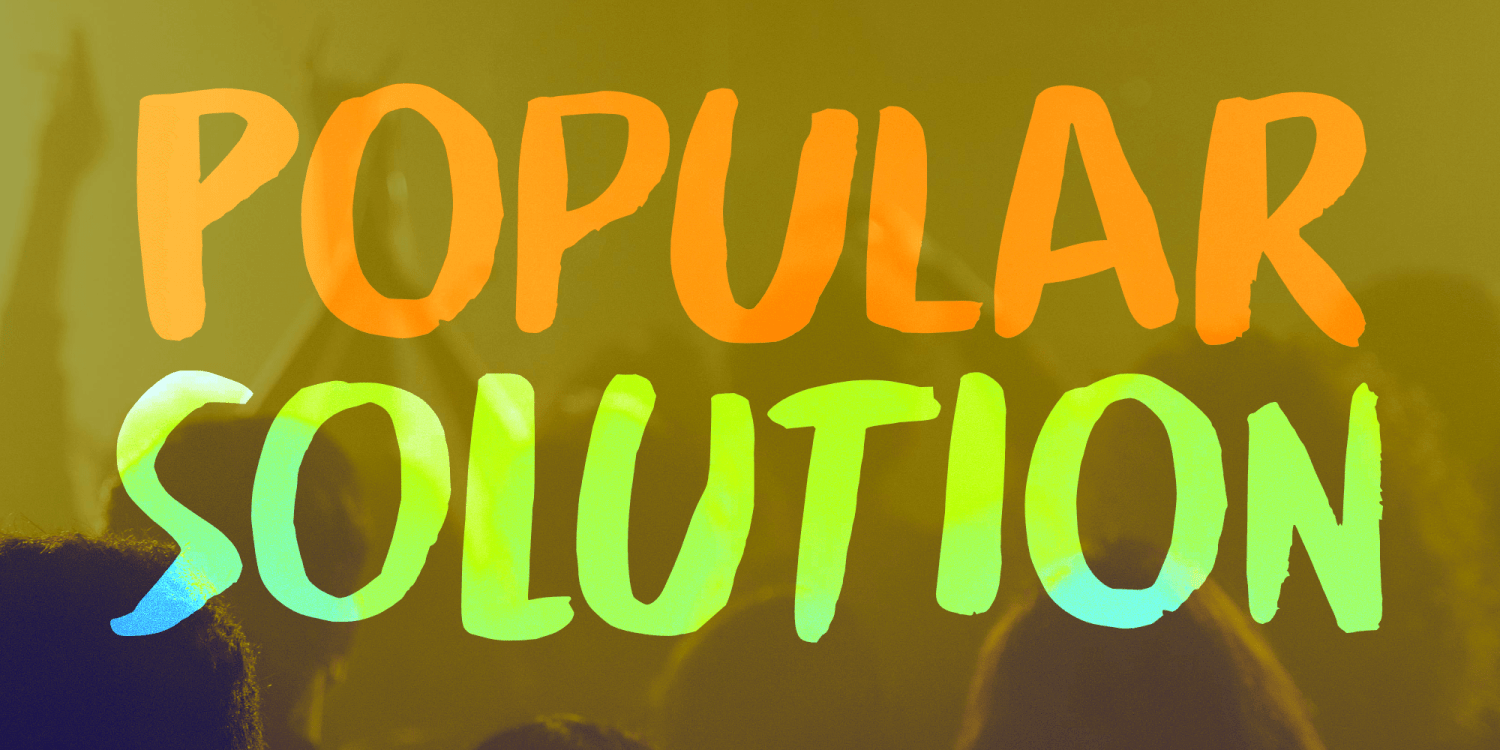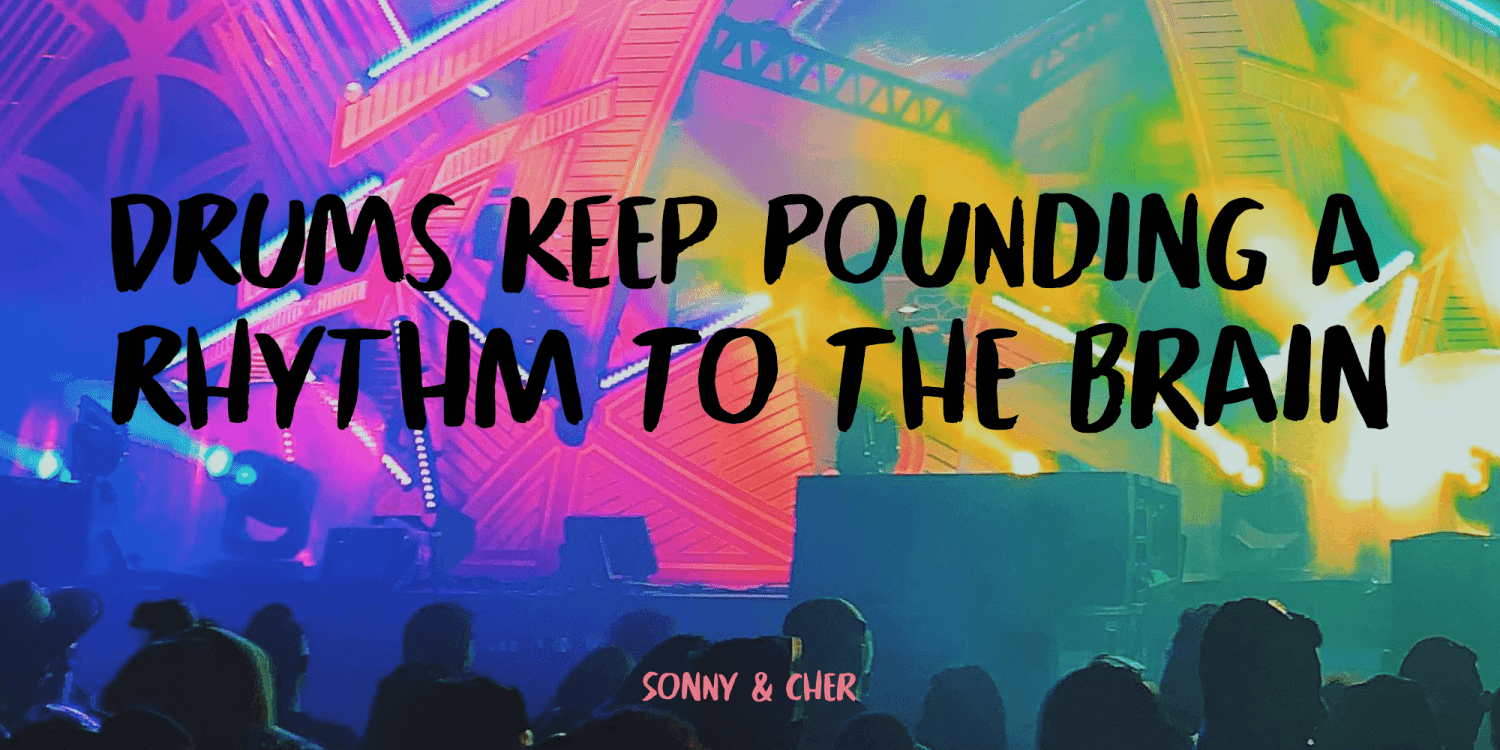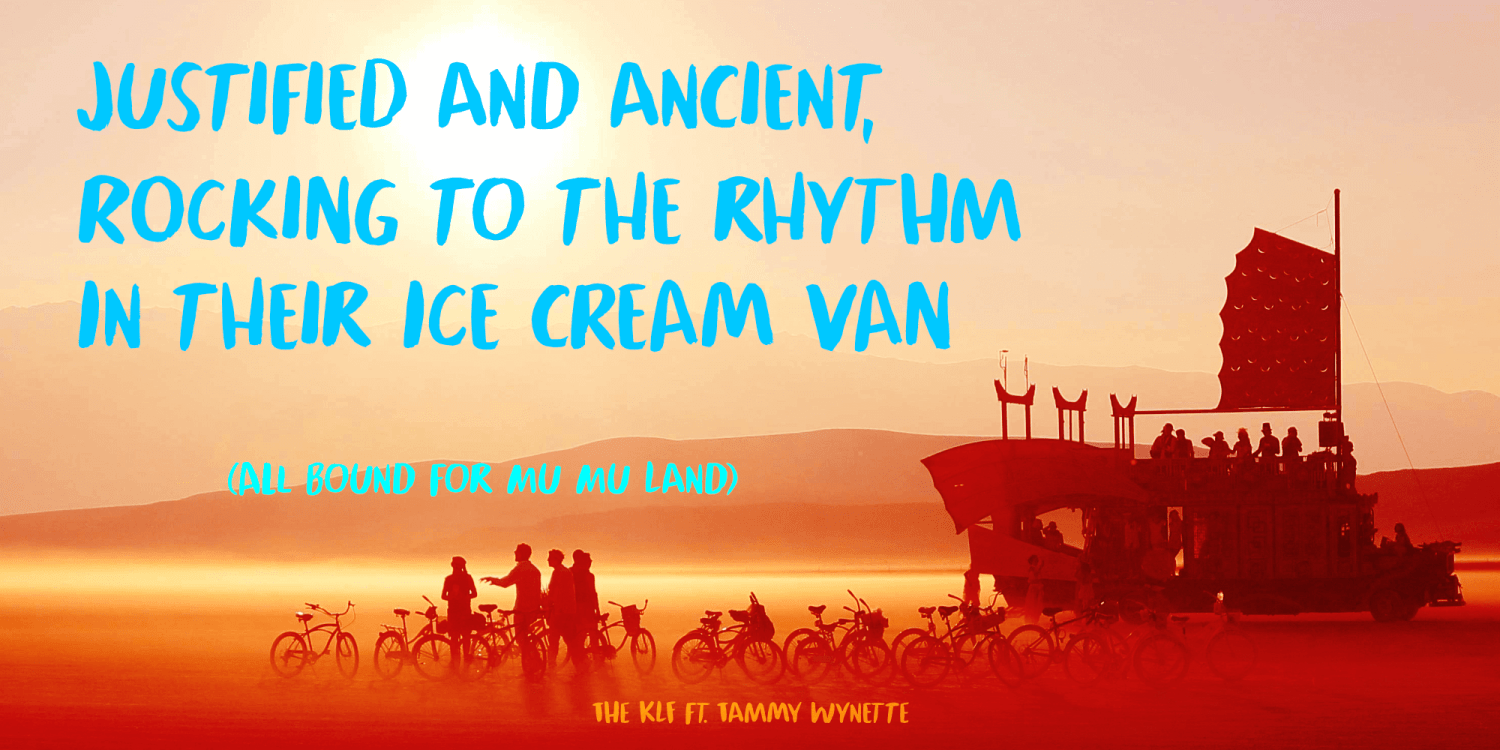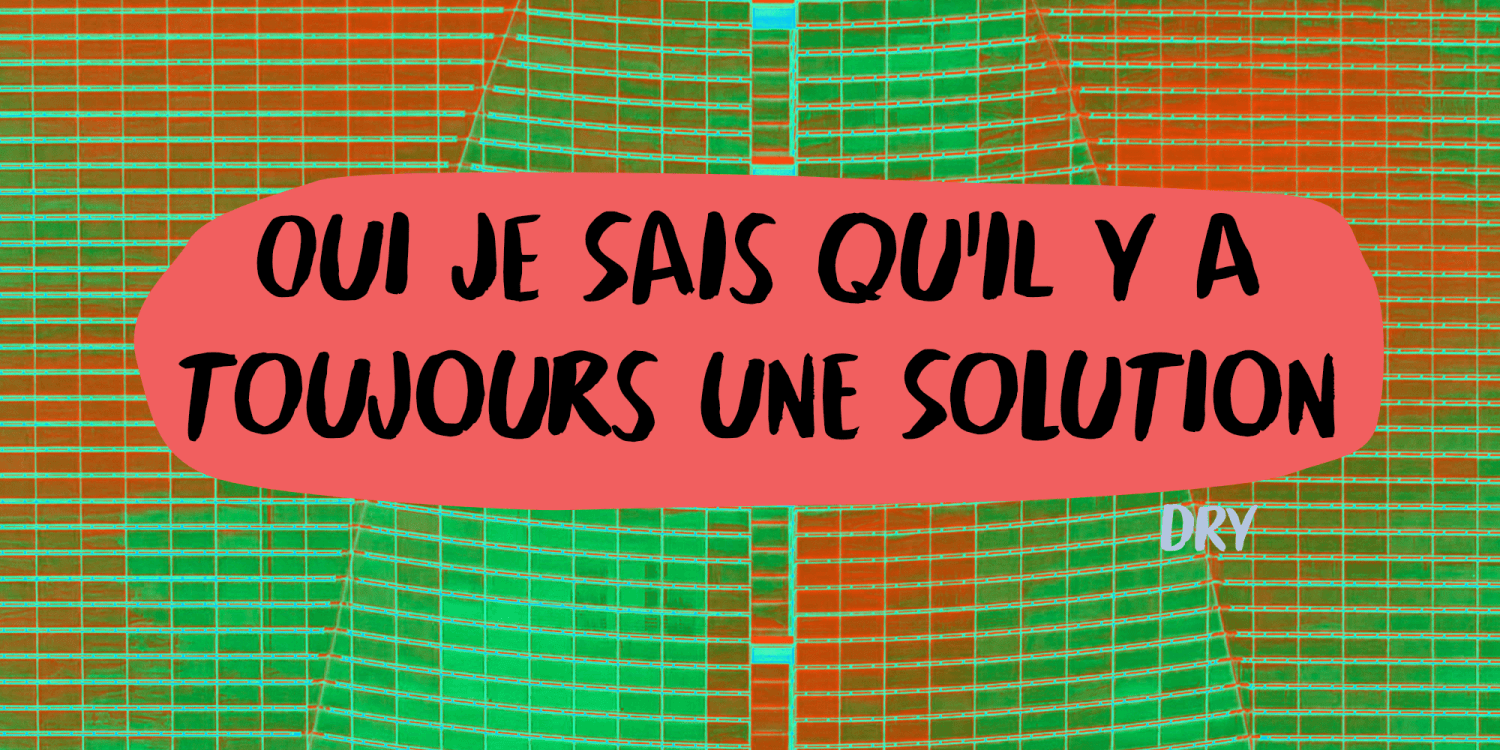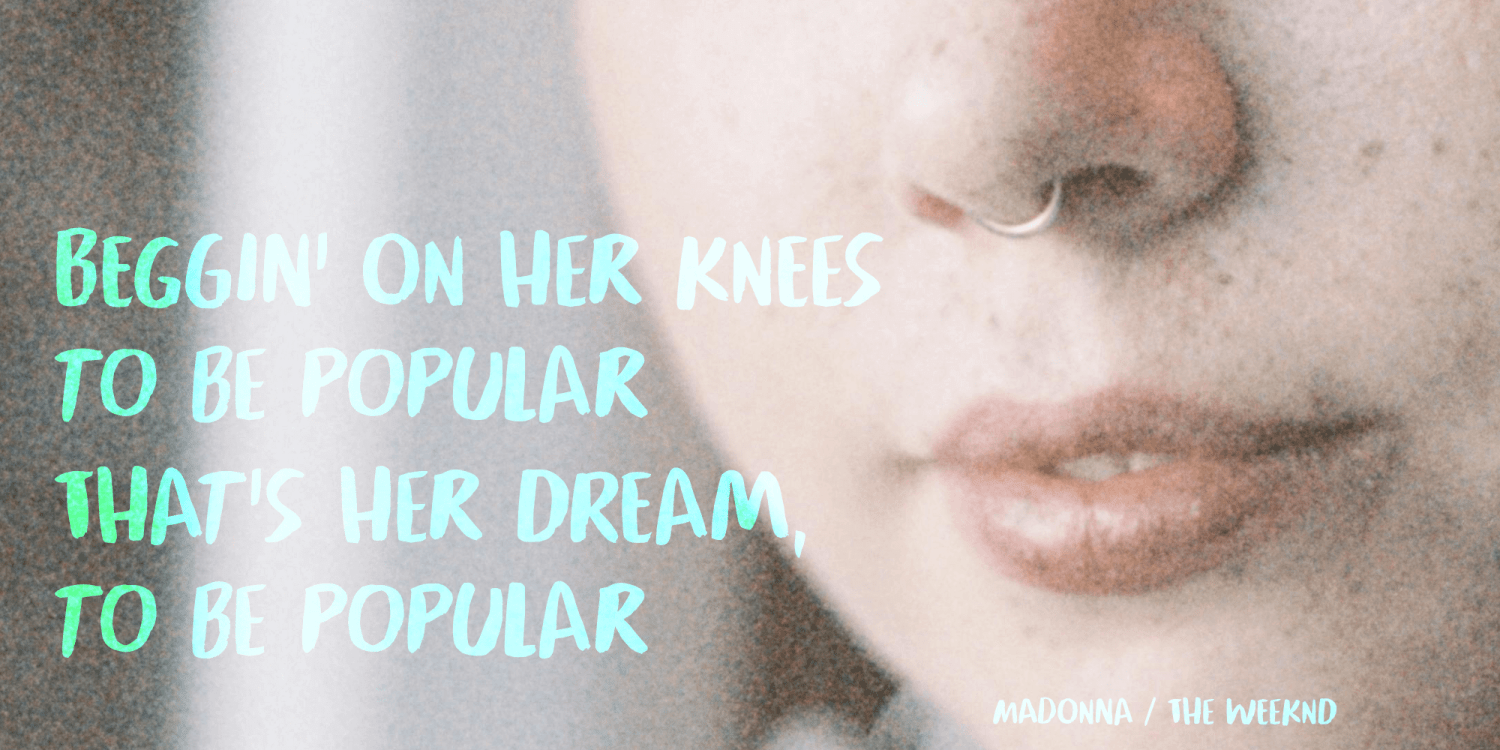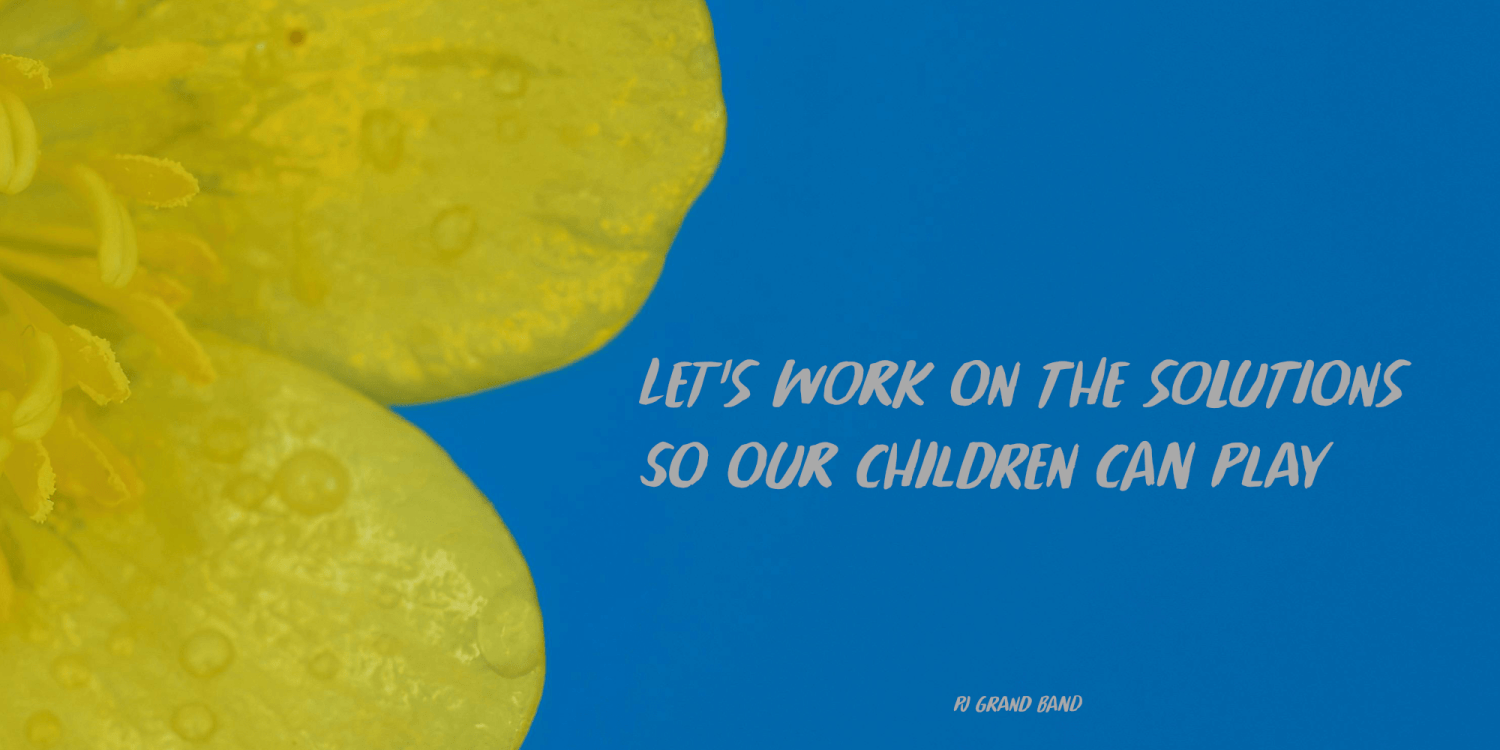
Popular Solution
Font Family by Hanoded
Popular Solution is a font I made with a soft, pointy brush and Chinese ink on 180gr water colour paper. The name? Well, I often use a random word generator for inspiration and look for a combination of words that just sounds good. Popular Solution is an uncommon combination, but when you say them out loud, it sounds good.
Popular Solution comes with extensive language support and a set of alternates for the lower case glyphs.